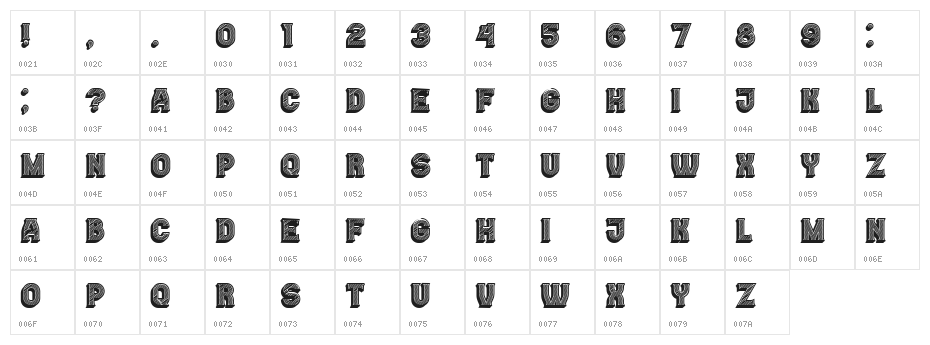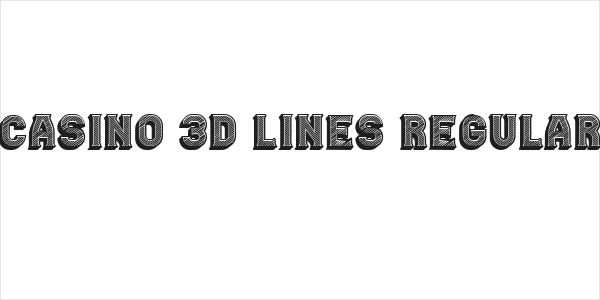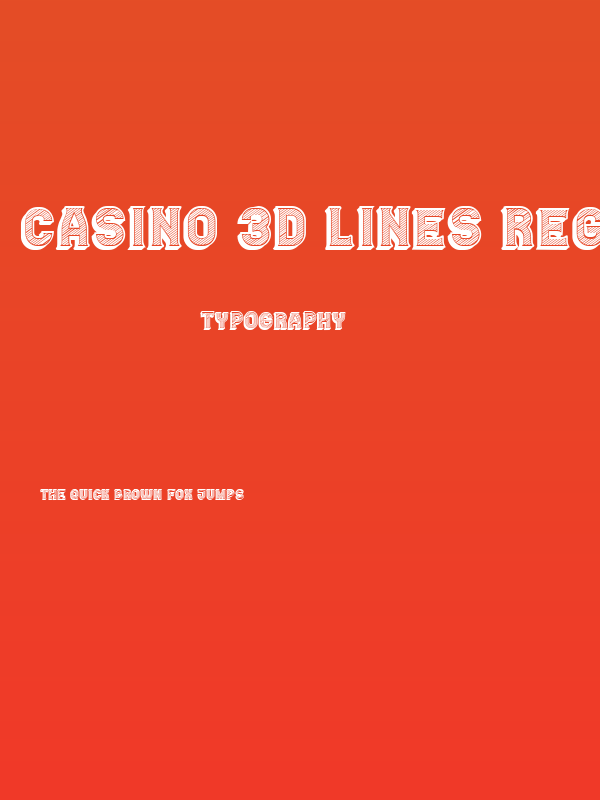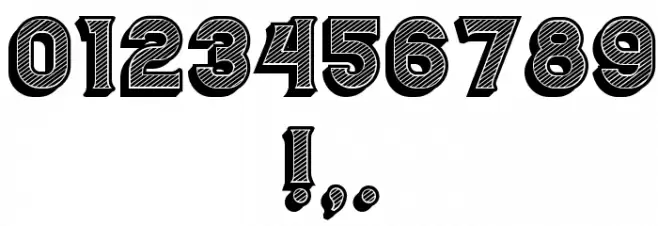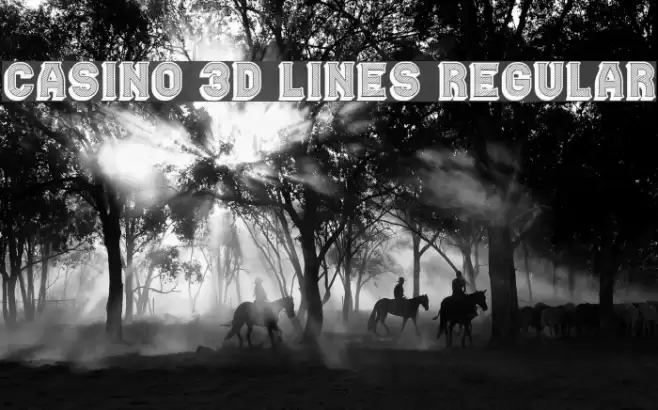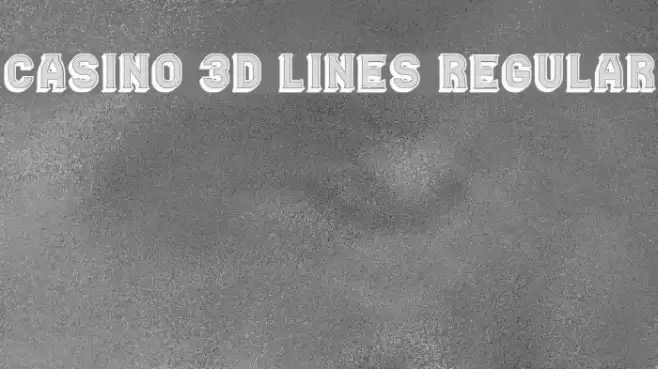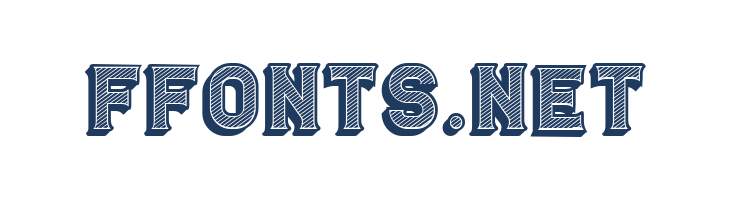
Casino 3D Lines Regular Font
Casino 3D Lines Regular Description
This font features a bold, three-dimensional design with a striped pattern that gives it a dynamic and eye-catching appearance. The uppercase letters are robust and heavily stylized, with a strong presence that makes them ideal for attention-grabbing headlines or titles. The numbers and special characters maintain the same bold and decorative style, ensuring consistency across all text elements. The font's unique 3D effect is achieved through a clever use of shading and line work, creating a sense of depth and movement. This makes it particularly suitable for projects that require a playful or energetic vibe.
| Proposed Projects | Ideal for use in posters, event flyers, video game titles, and branding materials that require a bold and playful aesthetic. |